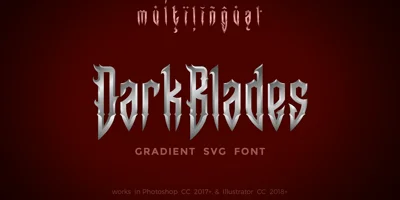
Dark Blades Steel Font
Dark Blades Steel Font is powerfully designed for medieval gaming logos, sword manufacturing branding, dark fantasy book covers, metalworking workshop signage, blade collector magazines, historical weaponry museums, gothic metal band materials, and intense action movie posters. This formidable typeface excels in environments requiring metallic intensity and blade-forged authenticity, making it perfect for gaming companies, metalworking artisans, fantasy entertainment brands, and any business needing to communicate steel craftsmanship and warrior spirit through distinctive typography.
What makes Dark Blades Steel Font so exciting is its masterful capture of forged steel aesthetics and medieval weaponry craftsmanship that instantly evokes the dark intensity of master blacksmiths and the legendary power of expertly crafted blades. The font features boldly forged letterforms with sharp angles and metallic precision that reflect the dangerous beauty of tempered steel and the ancient artistry of blade making traditions. Its steel construction and warrior character make it incredibly effective for brands wanting to communicate strength, craftsmanship, and metallic excellence while appealing to audiences who appreciate medieval weaponry and dark fantasy aesthetics.
Dark Blades Steel Font typically includes multiple weights and styles such as Regular, Bold, Heavy, and potentially battle-worn variants with enhanced metallic elements. The font family often features additional character sets including weapon symbols, forge icons, and medieval glyphs that enhance its steel crafting appeal. Each weight maintains the font's distinctive metallic character while offering different levels of intense emphasis, providing designers with comprehensive tools for creating powerful brand identities and steel-focused communication materials.
Gaming industry professionals will find that Dark Blades Steel Font delivers outstanding performance in both traditional metalworking applications and contemporary fantasy marketing materials requiring steel authenticity. The font's carefully forged character set includes weapon-appropriate letterforms, steel symbols, and metallic elements essential for gaming branding, metalworking materials, and fantasy communications. Its intense design makes it particularly effective for sword makers, gaming companies, fantasy publishers, and intensity-oriented marketing campaigns requiring authentic steel presence.
The strategic attention to steel proportions and forged spacing ensures that Dark Blades Steel Font maintains excellent readability while delivering maximum metallic impact. Its warrior-inspired design language makes it particularly effective for gaming applications, metalworking crafts, fantasy entertainment, and steel industry communications. The font's formidable appearance creates strong warrior credibility while remaining highly functional for projects requiring clear communication to gaming enthusiasts and metalworking communities.
For designers seeking a typeface that embodies steel mastery with warrior intensity, Dark Blades Steel Font represents an exceptional choice that will forge any project with its distinctive power and metallic character.